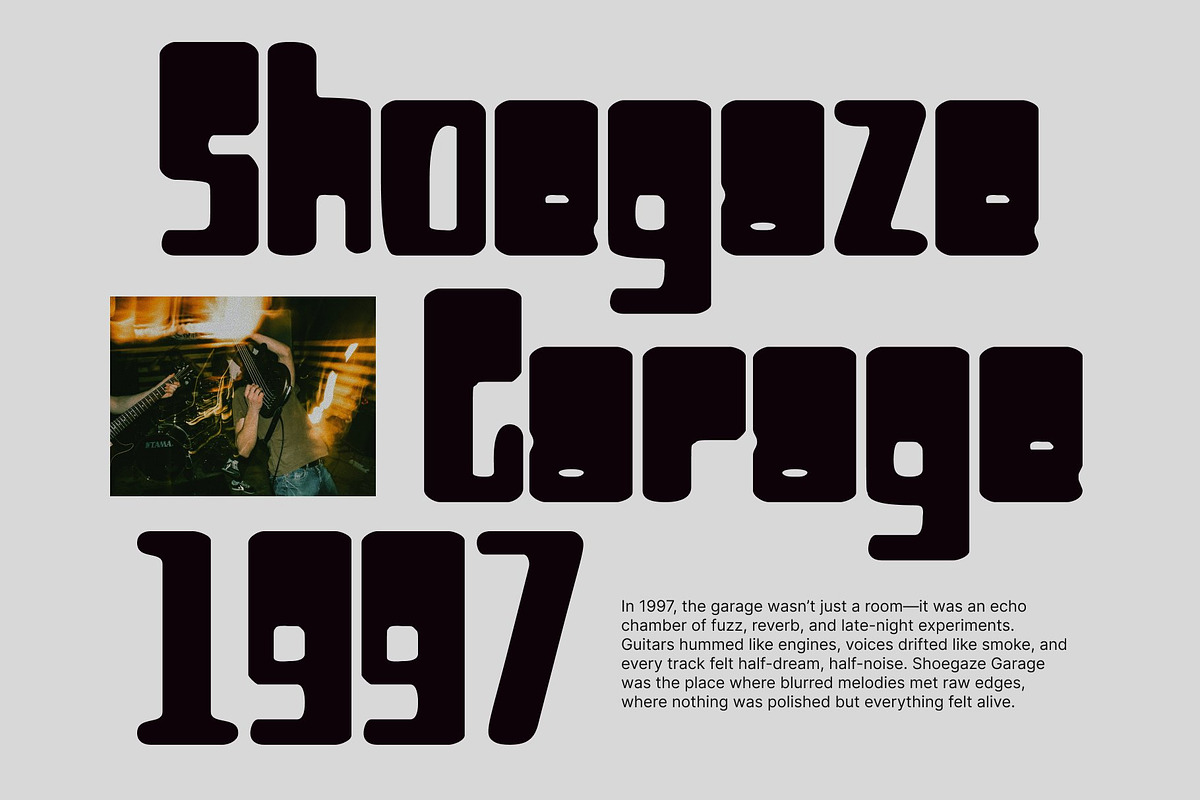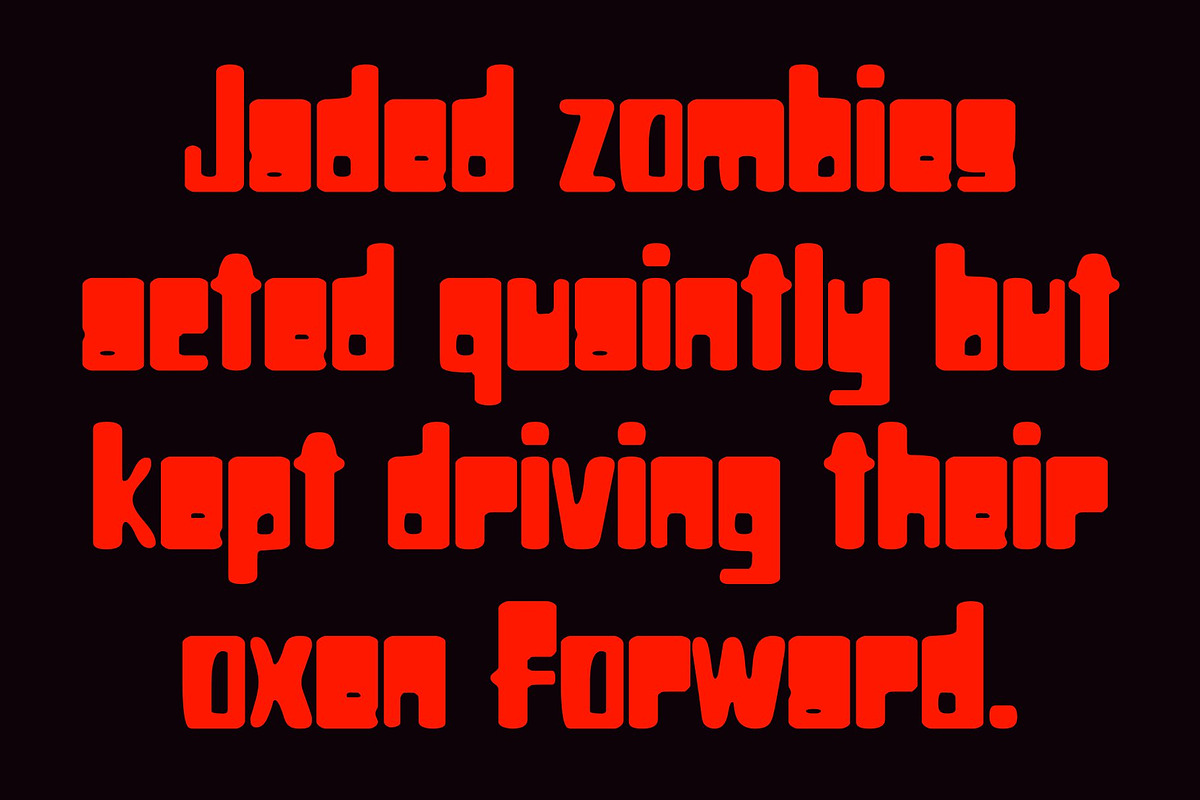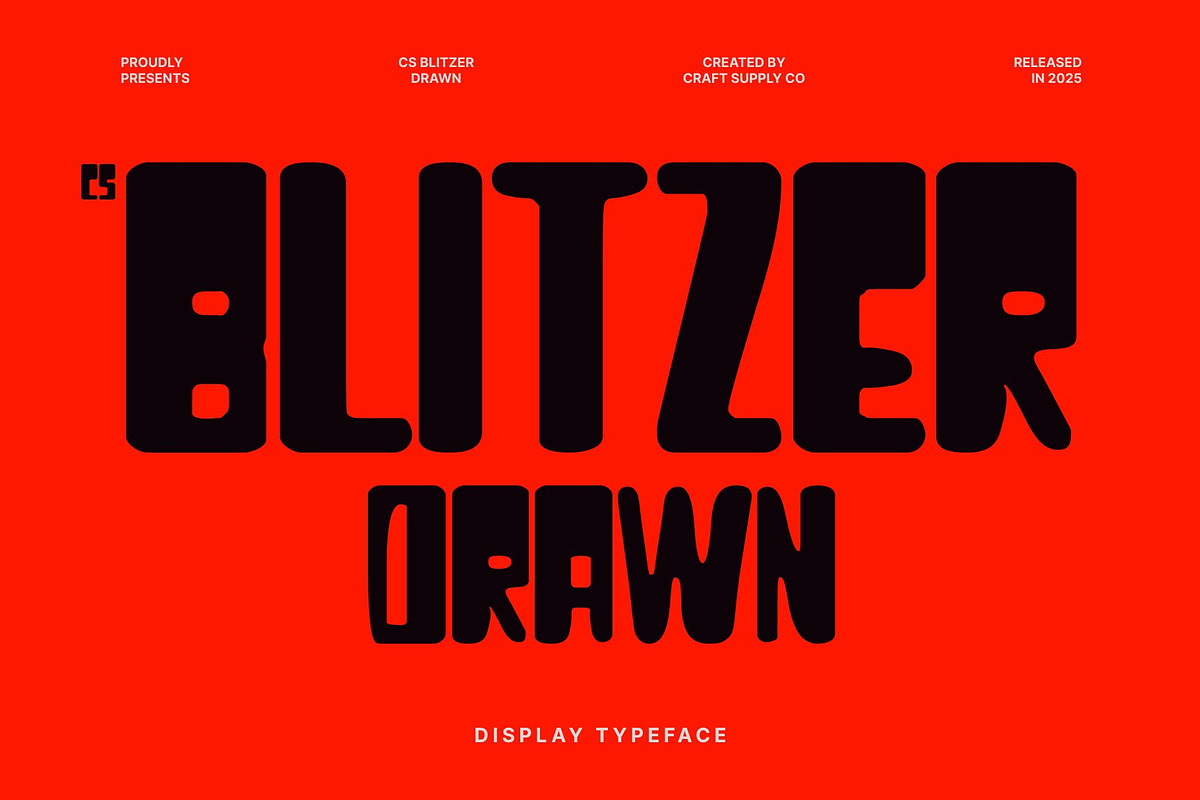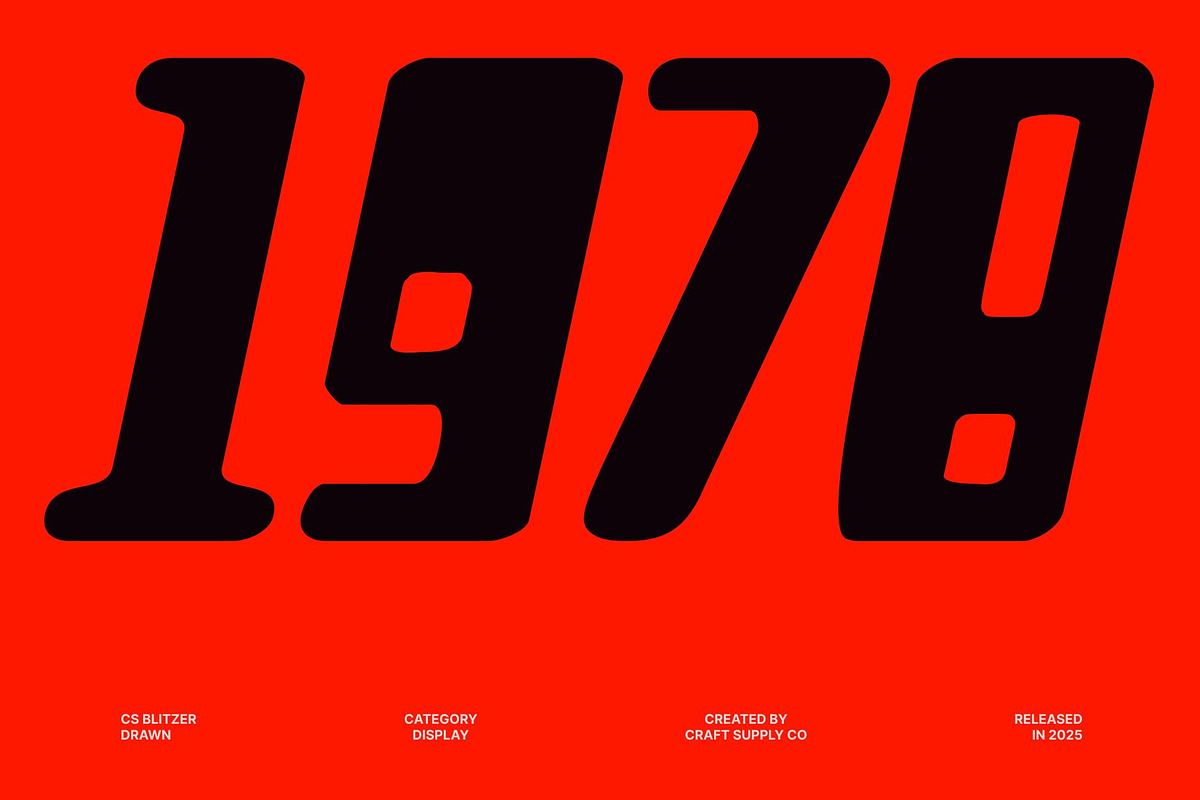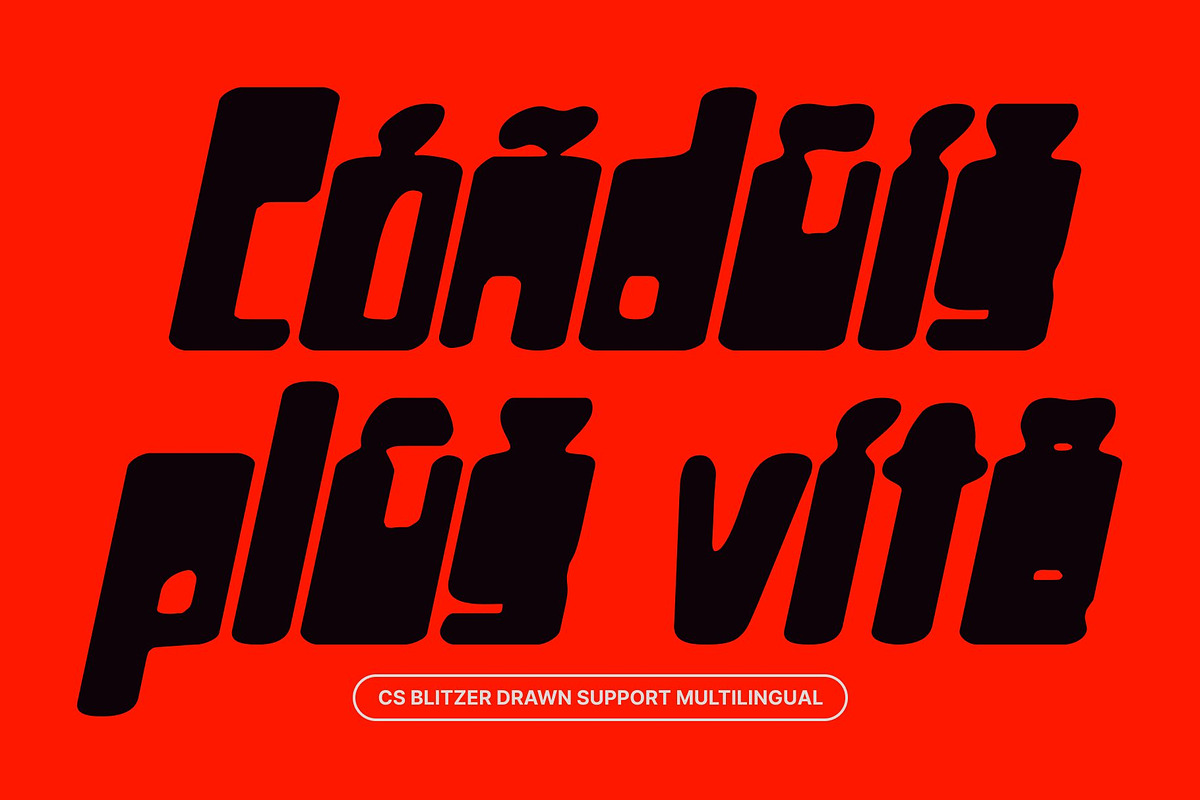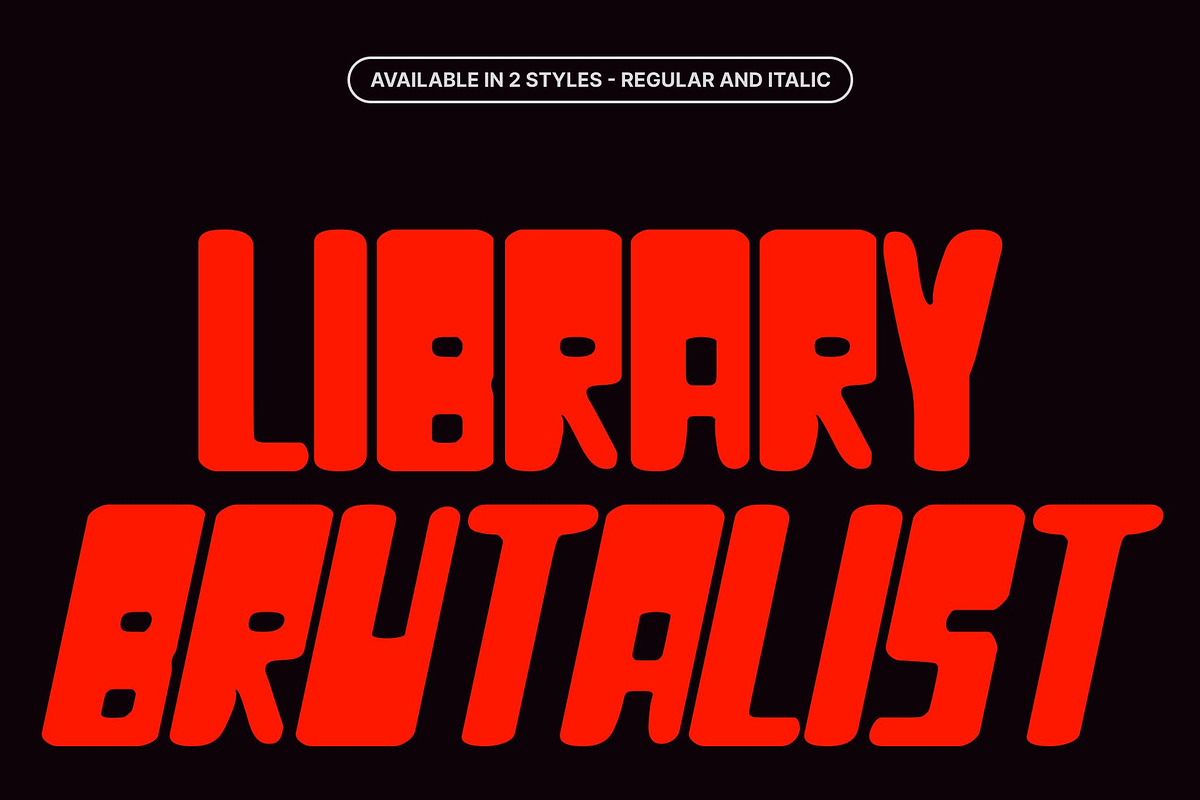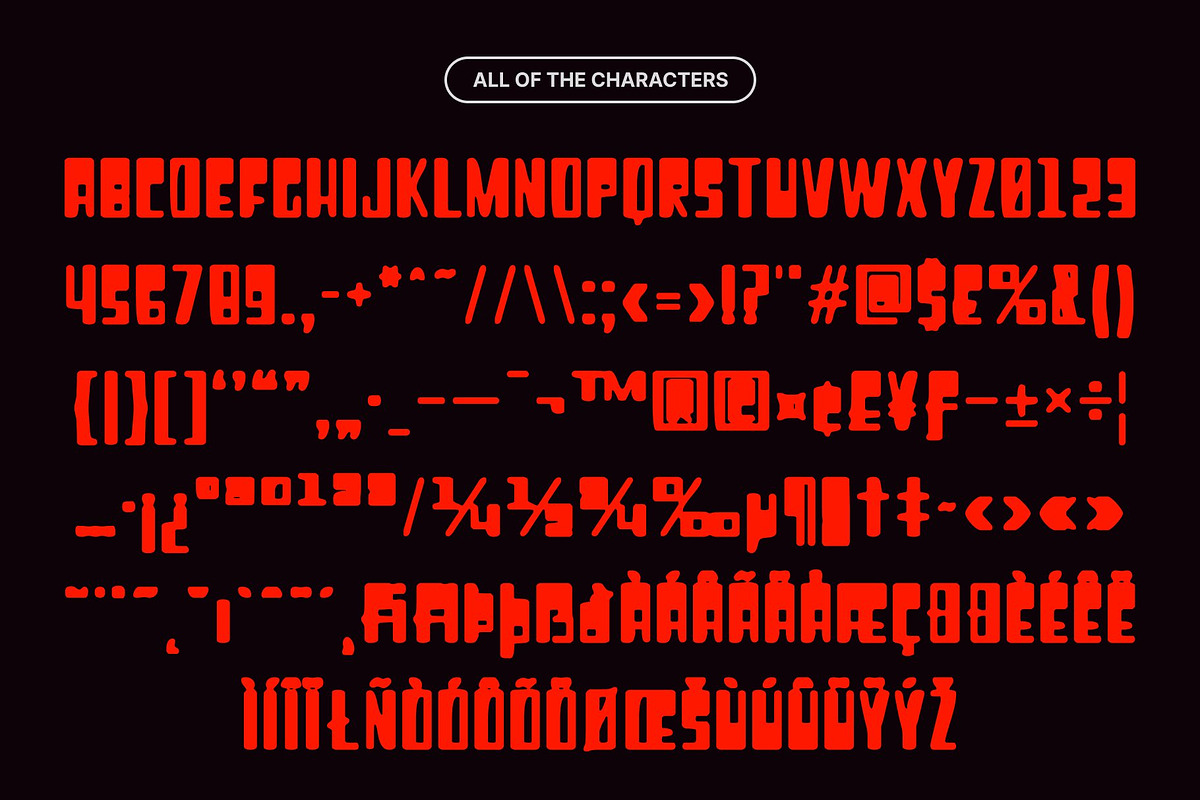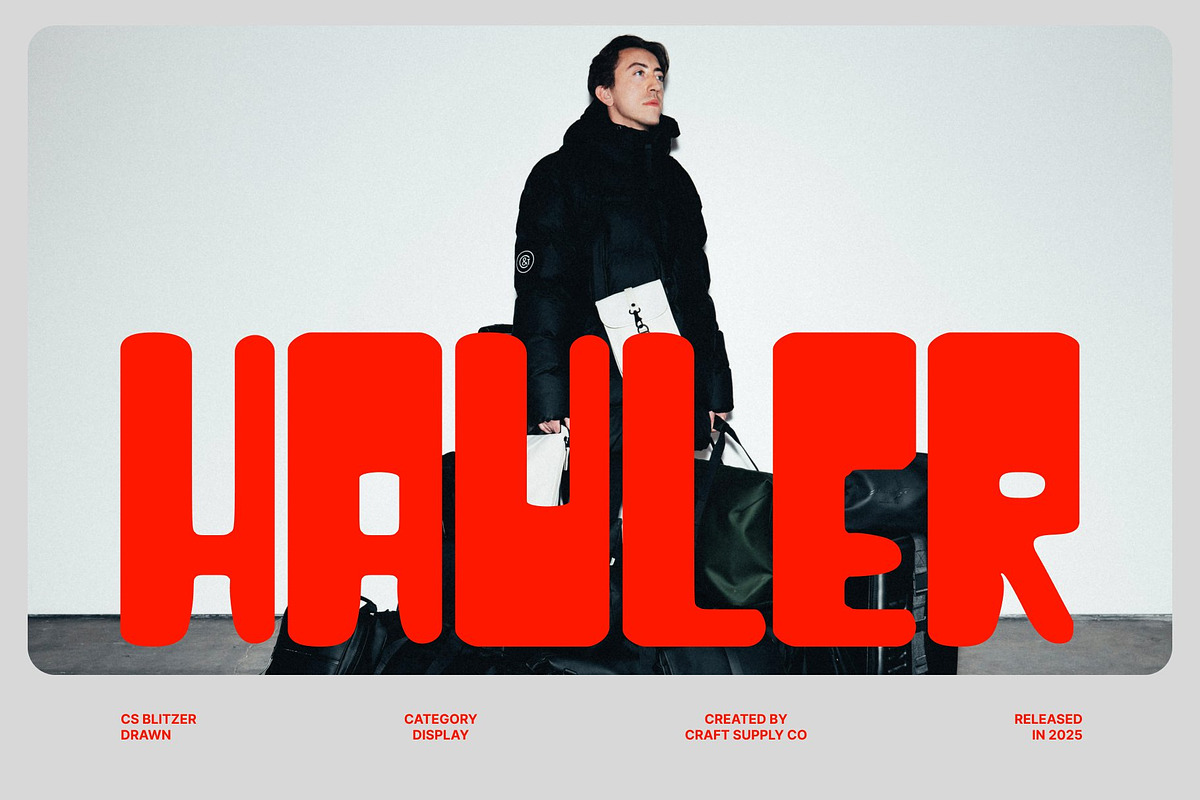
CS Blitzer Drawn
CS Blitzer Drawn – Bold Geometry Meets Brutalist Expression
Experimental Sans Serif with a Futuristic Edge This is an experimental sans serif font that pushes typographic boundaries through bold brutalist design. Featuring condensed proportions and striking reverse contrast, it challenges traditional structure while maintaining a cohesive and confident form. The result is a powerful modern typeface with a futuristic attitude and unmistakable presence.
Unconventional Geometry with Hand-Drawn Character Built on sharp geometric foundations, this font embraces creative distortion and architectural tension. The hand-drawn effect adds raw texture and individuality, softening the rigidity of its brutalist construction. Each letter feels intentionally crafted, transforming text into an expressive visual element with industrial and forward-thinking energy.
Designed for Editorials and Futuristic Visuals This font excels in high-impact applications such as editorials, futuristic posters, experimental branding, and contemporary graphic layouts. Its condensed form and dramatic contrast command attention, making headlines, titles, and key visuals feel bold, assertive, and visually striking.
A Typeface for Visionary Designers This font is more than a font it’s a typographic statement. Created for designers who challenge convention, it blends brutalist aesthetics with avant-garde sensibility. Use it to craft work that feels innovative, confident, and unapologetically modern, where structure and creativity coexist in perfect tension.